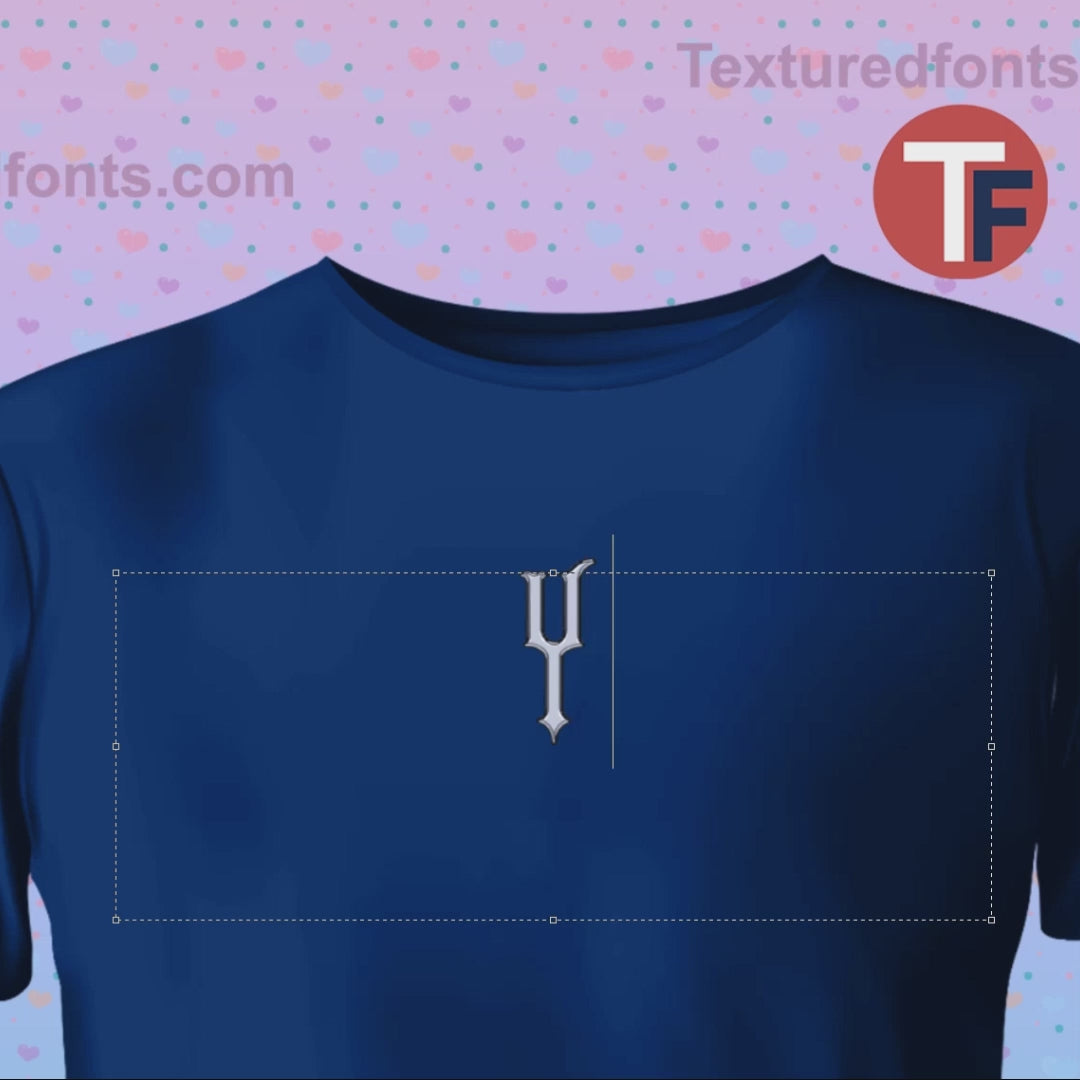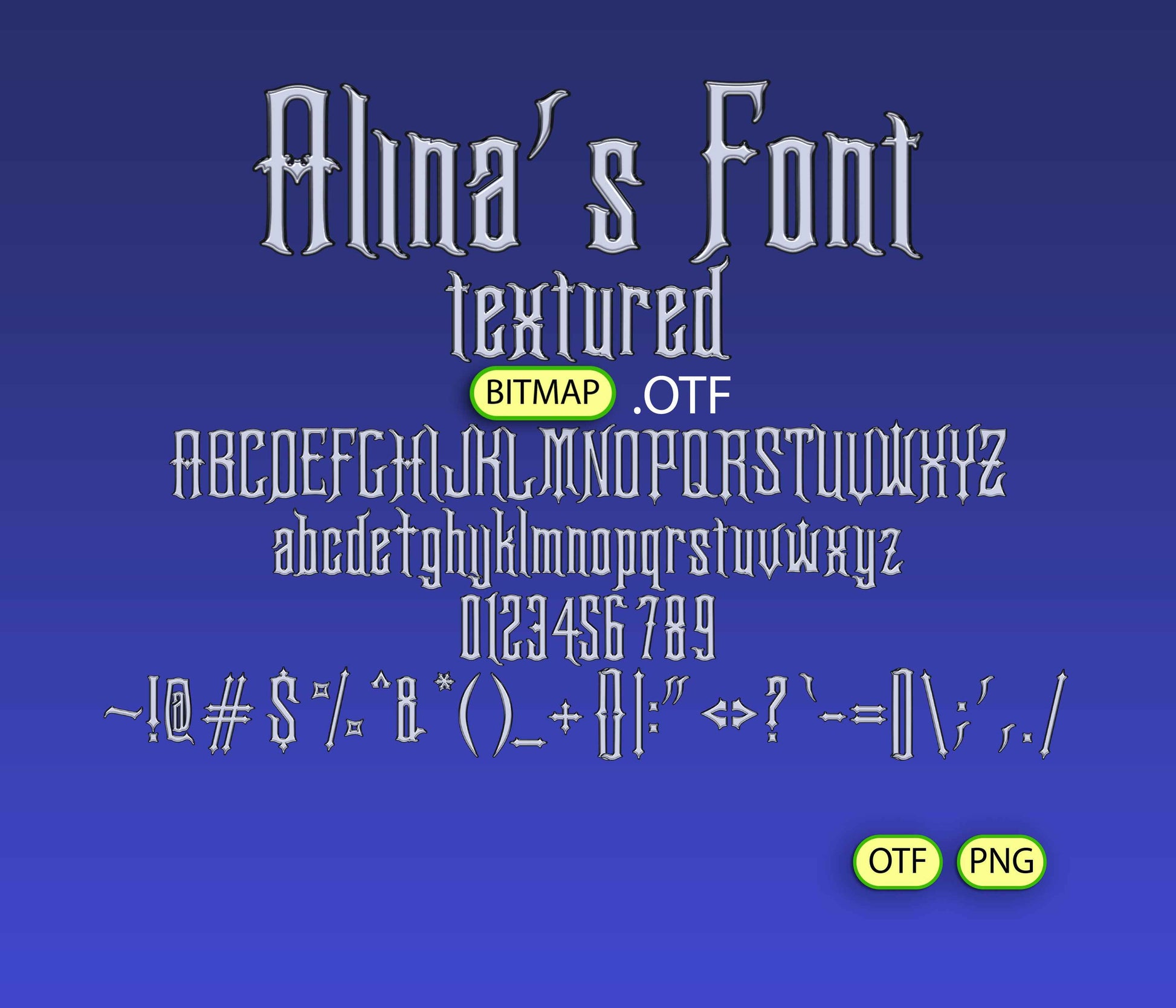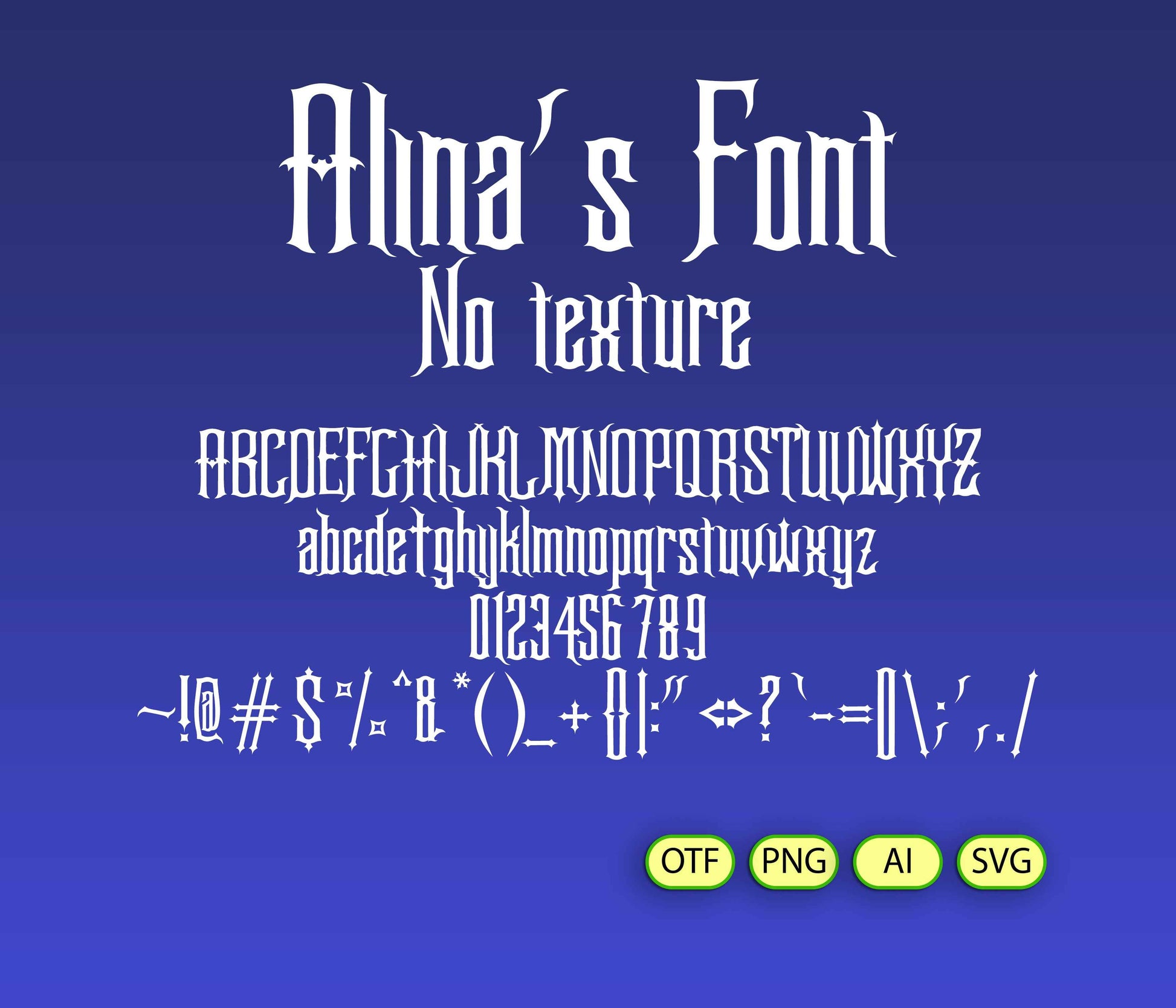
Enchanted Manor Font Textured
Invoke Gothic Elegance with the Enchanted Manor Font
Step into a world of eerie elegance and supernatural charm with our Enchanted Manor-inspired font. Perfect for fans of classic haunted themes and designers looking to add a touch of gothic sophistication to their projects, this font captures the mysterious and haunting essence of a legendary haunted mansion. Whether you're creating spooky event invitations, designing themed merchandise, or crafting digital content, our font ensures your projects resonate with ghostly allure and timeless style.
Our Enchanted Manor-inspired font features ornate, Victorian-style lettering with intricate details that echo the architecture and atmosphere of iconic haunted attractions. This font is versatile enough for a wide range of applications:
- Event Invitations: Perfect for Halloween parties, mystery dinners, or haunted house events.
- Themed Merchandise: Design t-shirts, posters, and accessories that capture the gothic beauty of the Enchanted Manor.
- Digital Media: Enhance websites, blogs, and social media content with captivating headers and graphics.
- Personal Projects: Add a spooky touch to scrapbooking, DIY crafts, or home decor.
- Promotional Materials: Create eye-catching flyers, brochures, and banners for themed events or attractions.
To ensure broad usability and flexibility, our Enchanted Manor-inspired font includes both textured and non-textured variants. The non-textured version is especially valuable, ensuring compatibility with all types of software, including Canva. This feature allows users of all skill levels to seamlessly integrate the font into their designs, enhancing accessibility and ease of use across various digital and print platforms.
Our Enchanted Manor font not only pays tribute to beloved haunted themes but also empowers you to infuse your designs with a sense of gothic elegance and supernatural mystery. Whether you’re crafting promotional materials, designing unique merchandise, or adding a haunted touch to personal projects, this font allows you to communicate with the timeless and enchanting spirit of a legendary haunted mansion. Ready to bring a touch of the macabre to your creative endeavors? This font is your key to unlocking a world of gothic sophistication and spectral beauty.